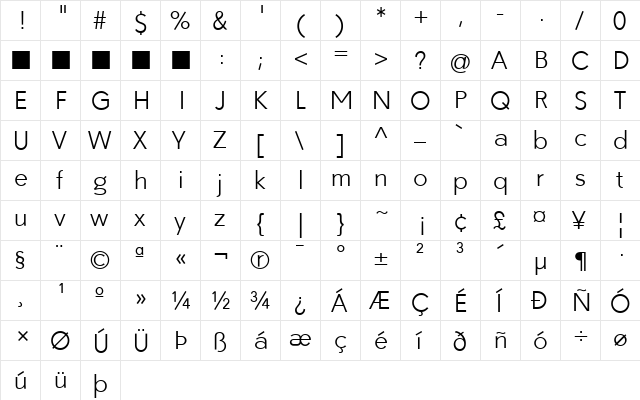
Paloseco Light
| Foundry | deFharo |
| Designer | Fernando Haro |
Design Context for Paloseco Typeface
Paloseco is a composed and adaptable typeface that performs quietly and consistently across a wide range of design contexts. Its slender proportions lend an understated elegance to any composition.